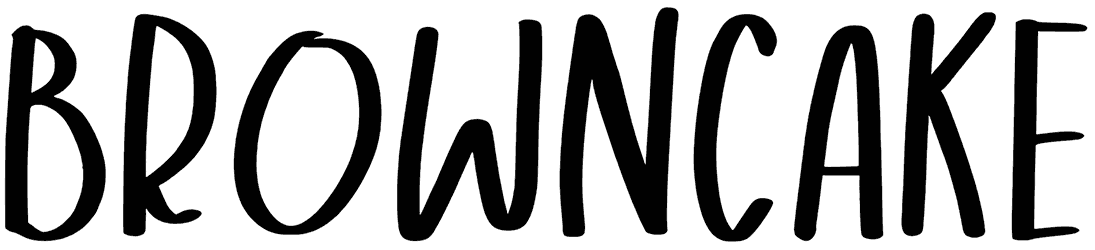
Browncake Font
If you are looking for an extraordinary script font, Browncake may help you reach your goals. This handwritten font has a popular style that catches your attention at first glance. The Browncake font may be helpful for s…
If you are looking for an extraordinary script font, Browncake may help you reach your goals. This handwritten font has a popular style that catches your attention at first glance.
The Browncake font may be helpful for several cases, such as flyers, social media posts, and posters; however, the lowercase letters are not included. This font’s letters are tall and have a playful form, making them shine in front of any eye. So download this font without hesitation.